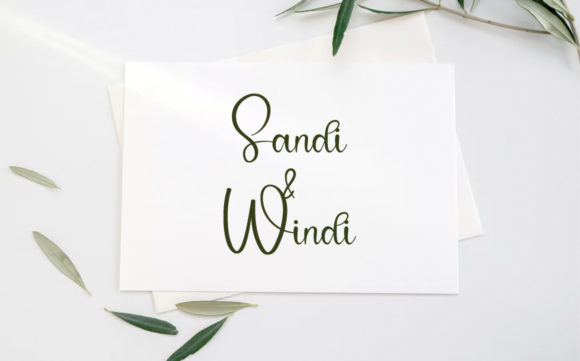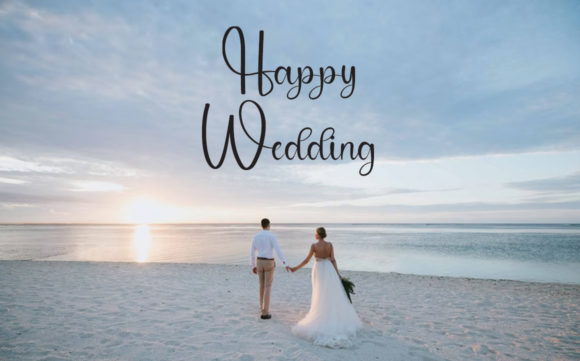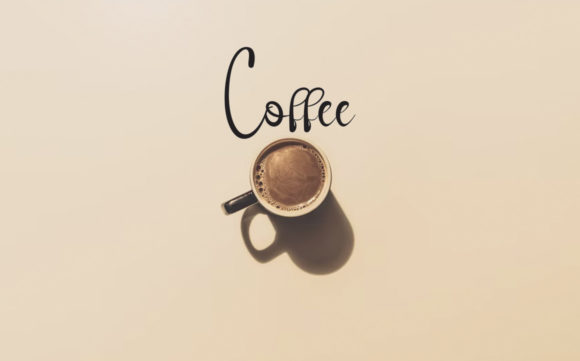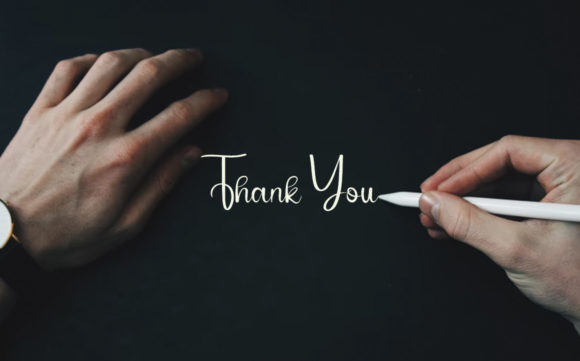
Happy Christmas Font
About Happy Christmas Font
Happy Christmas is a distinct and graceful script font. Add this well-balanced font to each of your love letters, wedding invitations or favorite design ideas, and you will be astounded by the outcome.